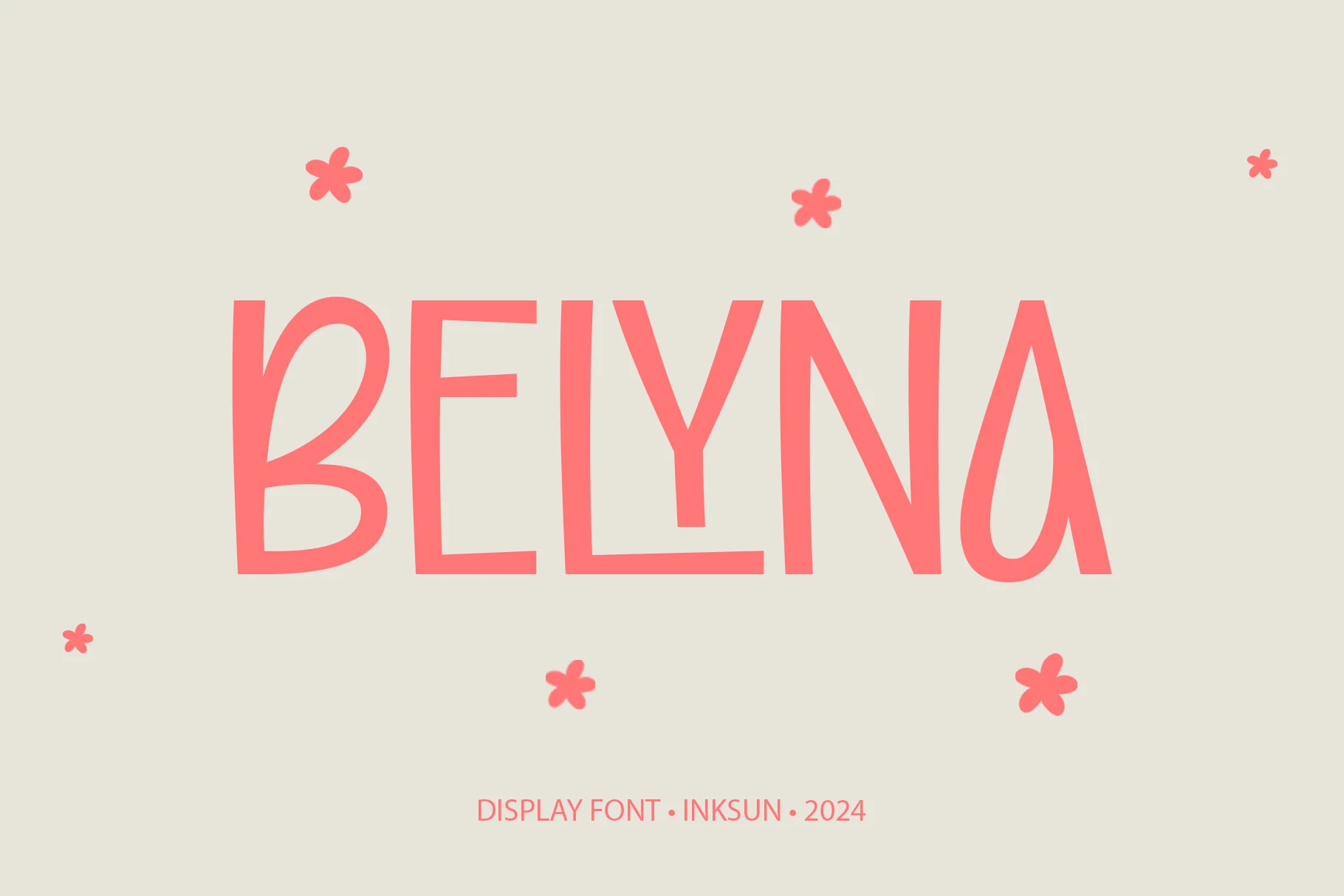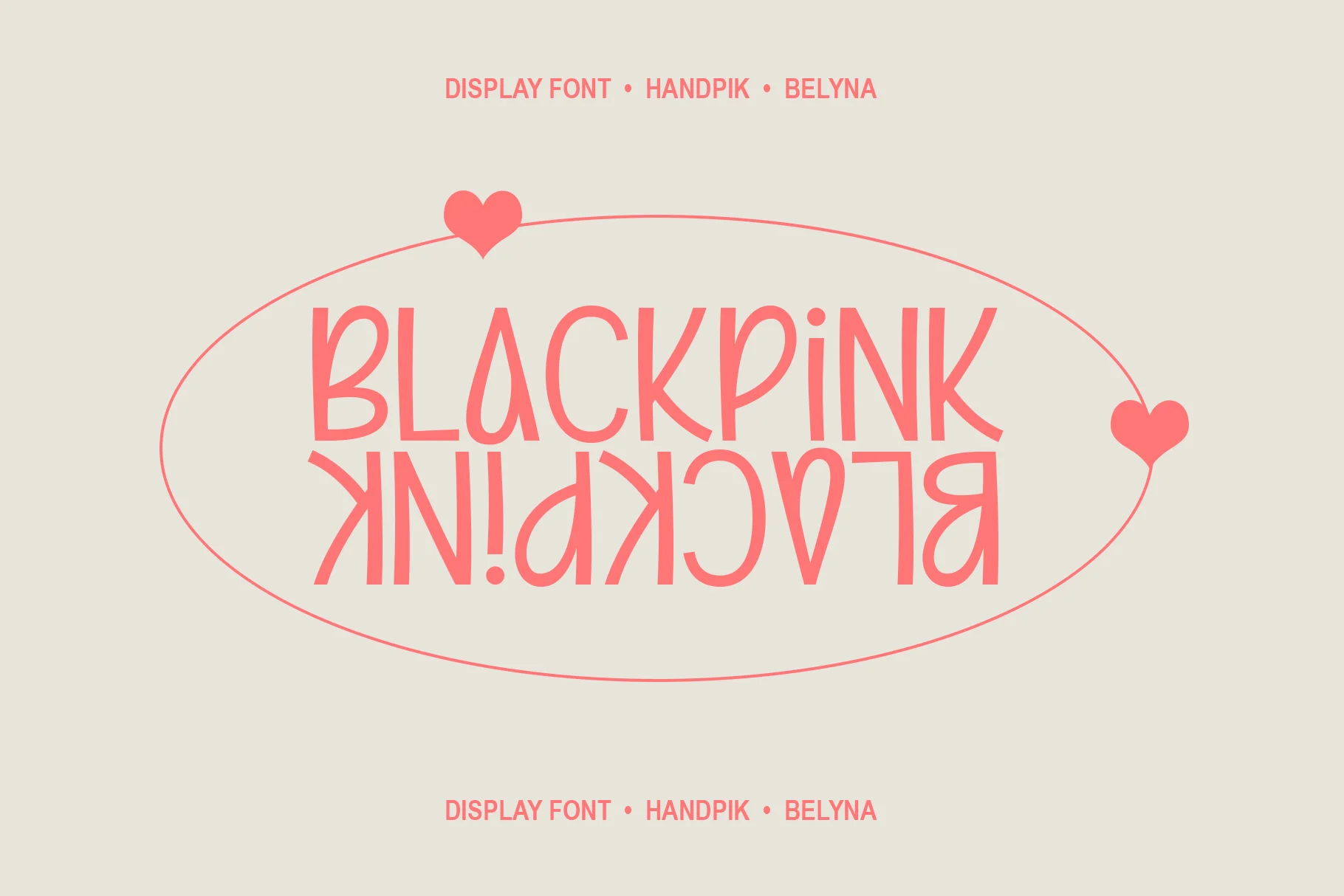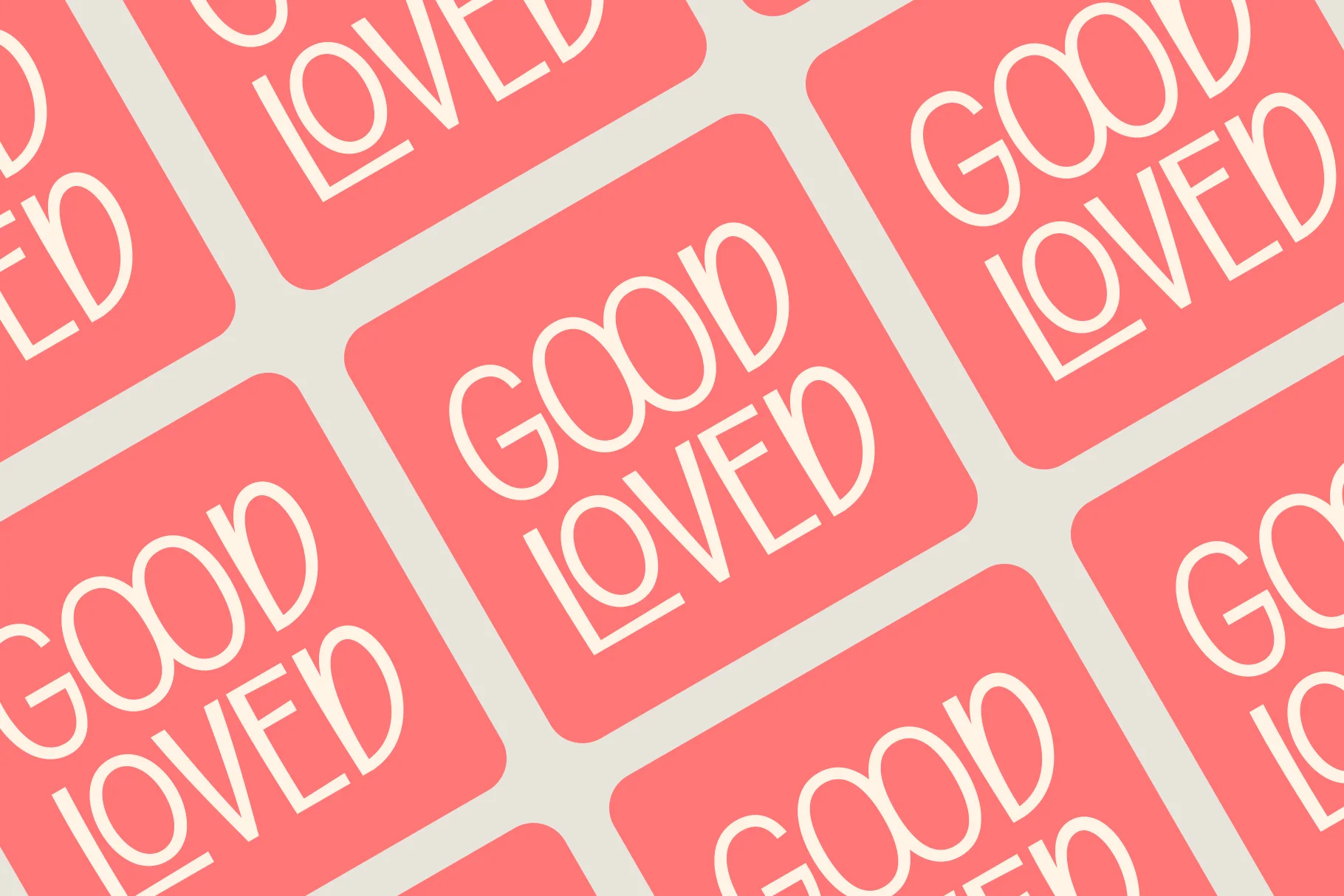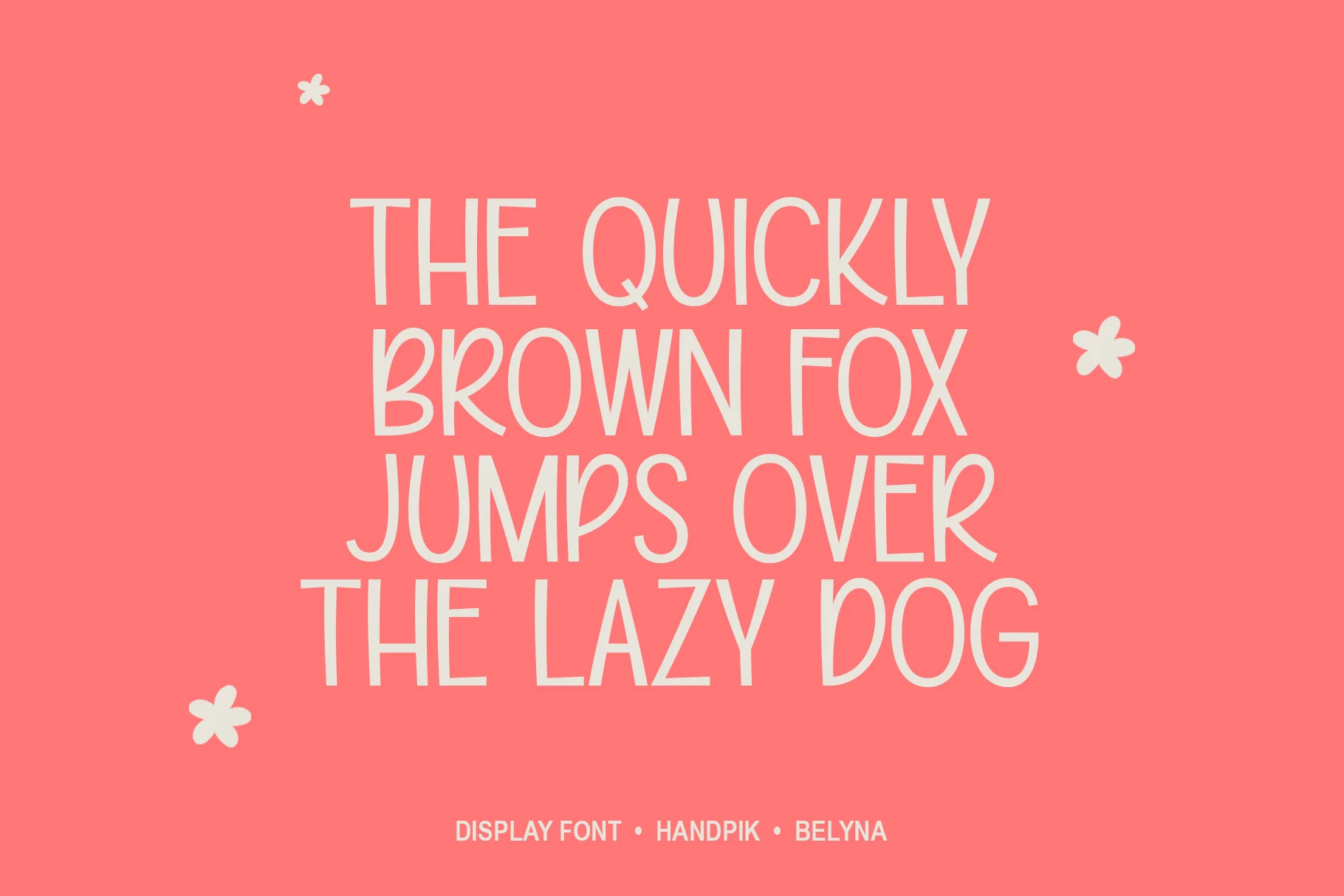
Belyna
This font is a modern Sans-Serif display font with simple, clean, and friendly characters. The letterforms are tall, slender, and slightly asymmetrical, creating a natural yet neat handwriting impression. The lines are consistent with gently rounded edges, creating a soft and easy-to-read appearance.
The primary impression is minimalist, warm, and relaxed, perfect for designs that want to feel personal without looking cluttered. The elongated, upward-pointing proportions of the letters create a light and airy feel, while the gentle curves of some characters add a sweet and playful touch.
This font is ideal for:
- Light titles and headlines
- Lifestyle and handmade product branding
- Posters, packaging, and stationery
- Social media content and illustrations
- Floral, cozy, and cheerful designs